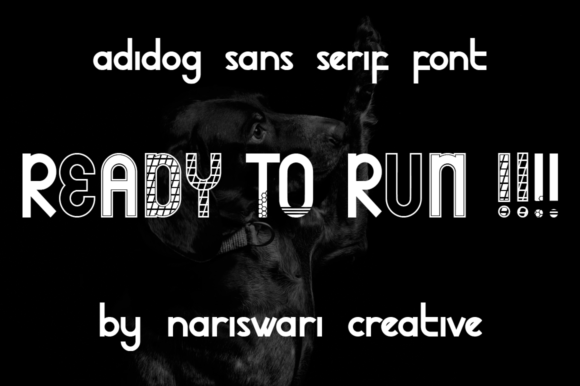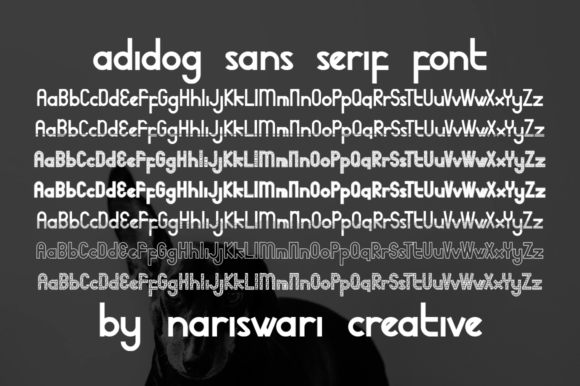
Introducing Adidog Font: The Ultimate Sans Serif for Creative Projects
Are you on the hunt for a font that can elevate your designs and make them stand out from the crowd? Look no further than Adidog Font, a minimal and neat sans serif font that’s perfect for a wide range of creative projects. In this article, we’ll dive into the world of Adidog Font, exploring its features, benefits, and uses, and show you why it’s a must-have for designers and crafters alike.
What is Adidog Font?
Adidog Font is a modern sans serif font that’s characterized by its clean lines, simple shapes, and minimalist aesthetic. It’s a highly versatile font that can be used in a variety of contexts, from digital designs to print materials, and is perfect for creating a professional and sleek look.
Key Features of Adidog Font
- Minimalist design: Adidog Font features a clean and simple design that’s free from unnecessary embellishments, making it perfect for designers who want to create a modern and sophisticated look.
- Highly versatile: Adidog Font can be used in a wide range of projects, from logos and branding to websites, magazines, and more.
- Easy to read: The font’s clear and simple design makes it easy to read, even at small sizes.
- Customizable: Adidog Font can be easily customized to suit your needs, with a range of weights, styles, and variations available.
Benefits of Using Adidog Font
So why should you choose Adidog Font for your next project? Here are just a few benefits of using this amazing font:
- Instant professionalism: Adidog Font gives your designs an instant professional look, making it perfect for businesses, brands, and individuals who want to create a polished and sophisticated image.
- Improved readability: The font’s clear and simple design makes it easy to read, reducing eye strain and improving the overall user experience.
- Flexibility: Adidog Font can be used in a wide range of projects, from digital designs to print materials, making it a great addition to any designer’s toolkit.
- Unique look: Adidog Font has a unique and distinctive look that sets it apart from other sans serif fonts, making it perfect for designers who want to create a memorable and lasting impression.
Using Adidog Font in Your Designs
So how can you use Adidog Font in your designs? Here are a few ideas to get you started:
- Logos and branding: Adidog Font is perfect for creating logos, business cards, and other branding materials that require a professional and sleek look.
- Web design: The font’s clean and simple design makes it perfect for use in web design, from website headers to body text.
- Print materials: Adidog Font can be used in a range of print materials, from brochures and flyers to magazines and newspapers.
- Social media graphics: The font’s modern and sophisticated look makes it perfect for use in social media graphics, from Facebook posts to Instagram stories.
Tips for Getting the Most Out of Adidog Font
Here are a few tips for getting the most out of Adidog Font:
- Experiment with different weights and styles: Adidog Font comes in a range of weights and styles, so don’t be afraid to experiment and find the one that works best for your project.
- Pair it with other fonts: Adidog Font can be paired with other fonts to create a unique and interesting look.
- Use it consistently: To get the most out of Adidog Font, use it consistently throughout your design to create a cohesive and professional look.
Adidog Font is a versatile and modern sans serif font that’s perfect for a wide range of creative projects. Its clean and simple design makes it easy to read and highly versatile, while its unique look sets it apart from other fonts. Whether you’re a designer, craft, or simply someone who wants to create a professional and polished look, Adidog Font is a great choice. So why not give it a try and see how it can elevate your designs?